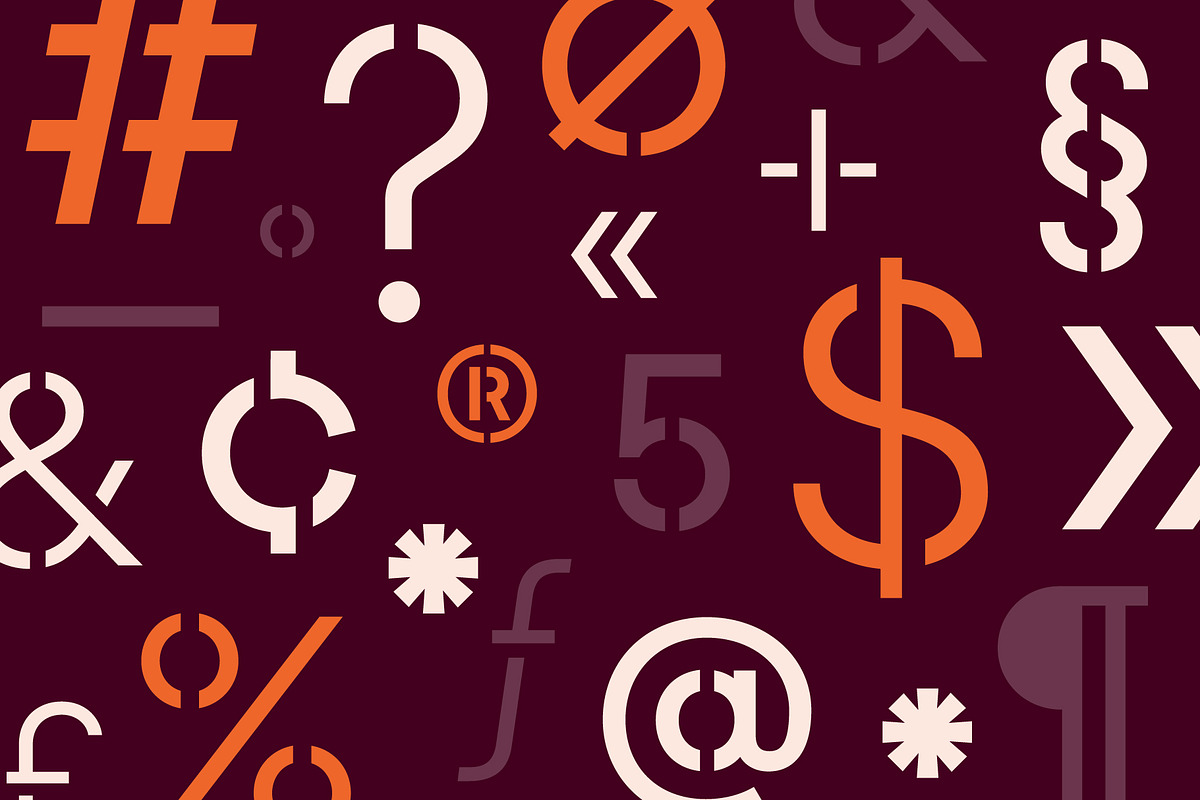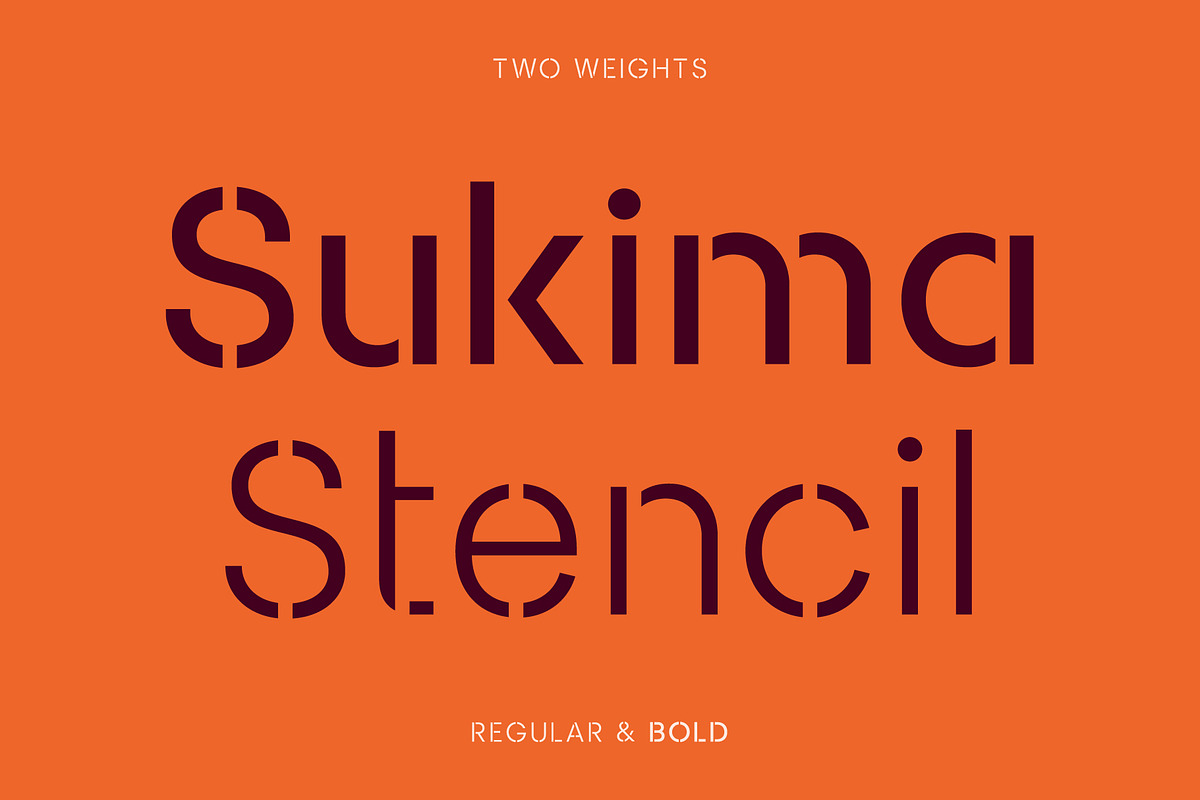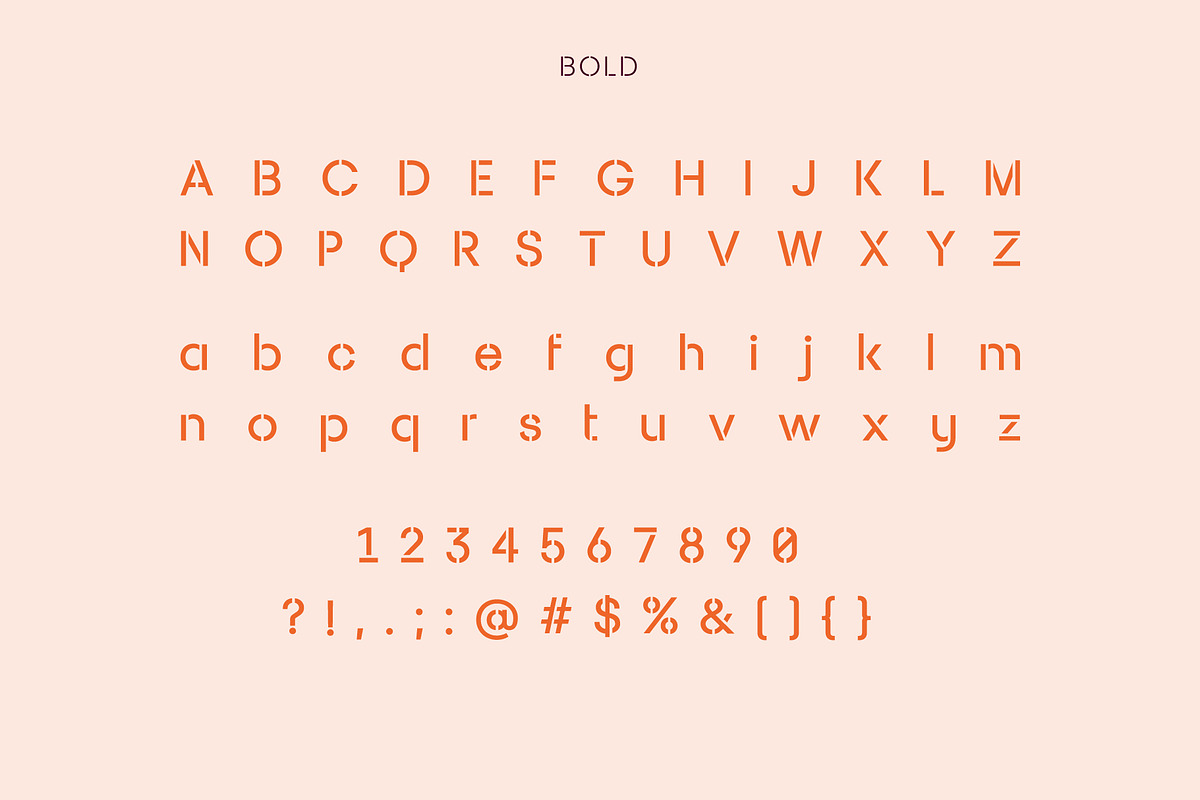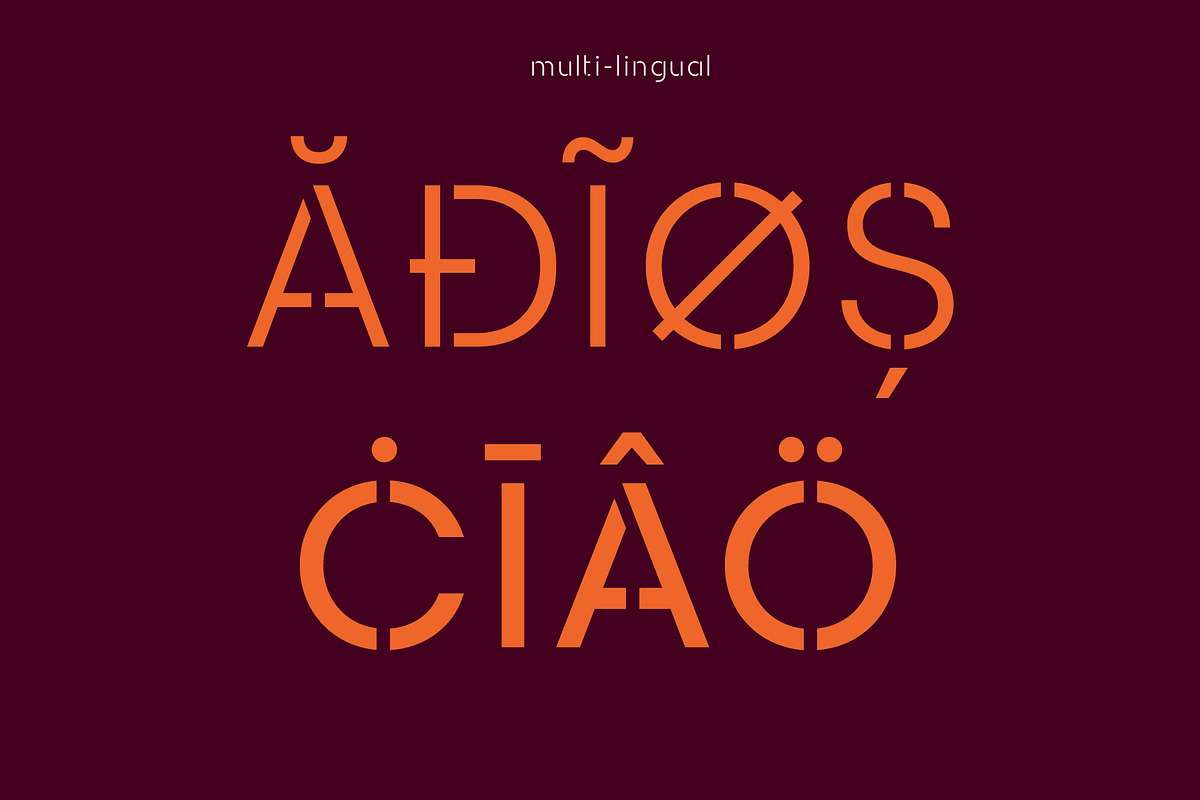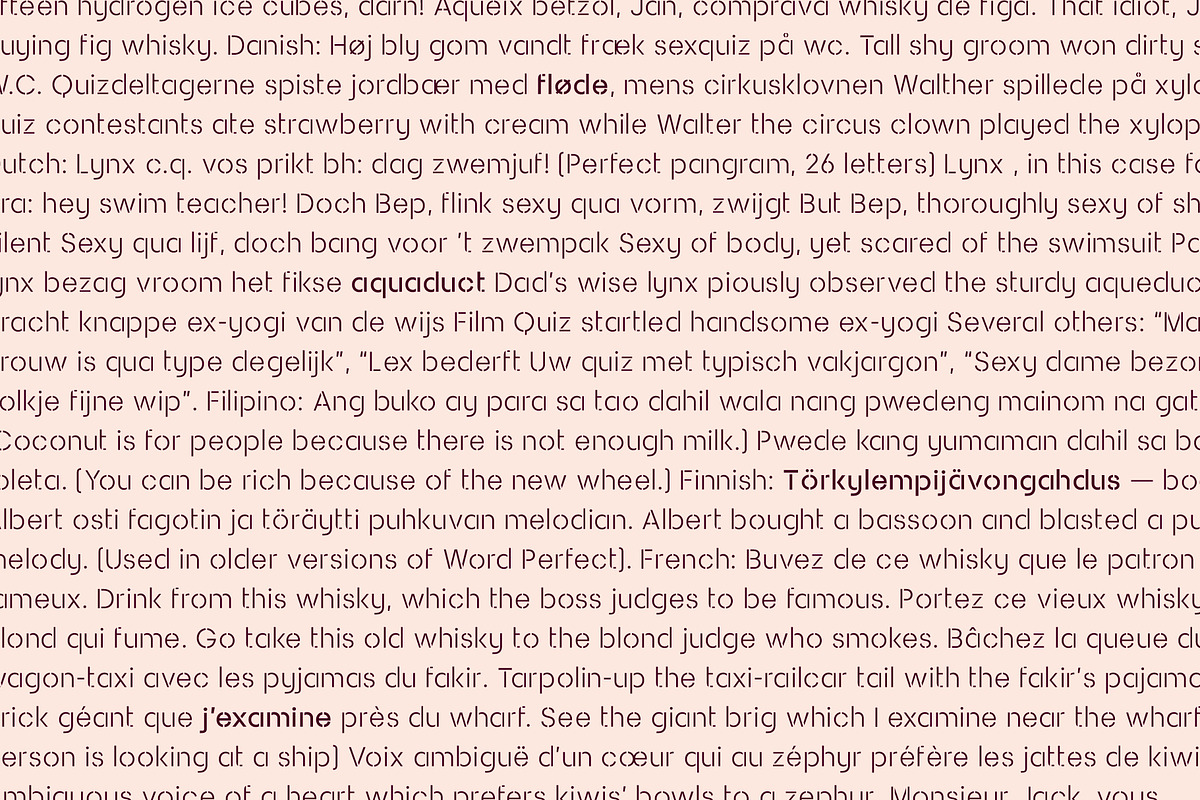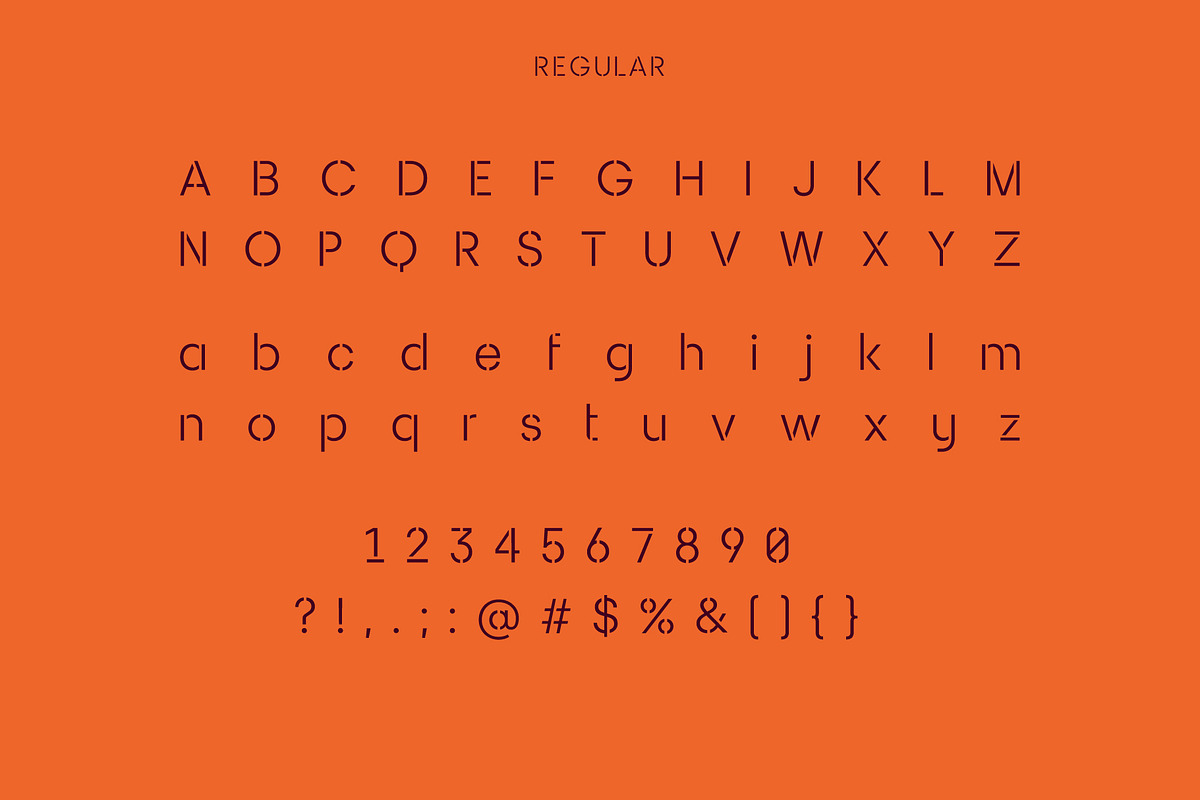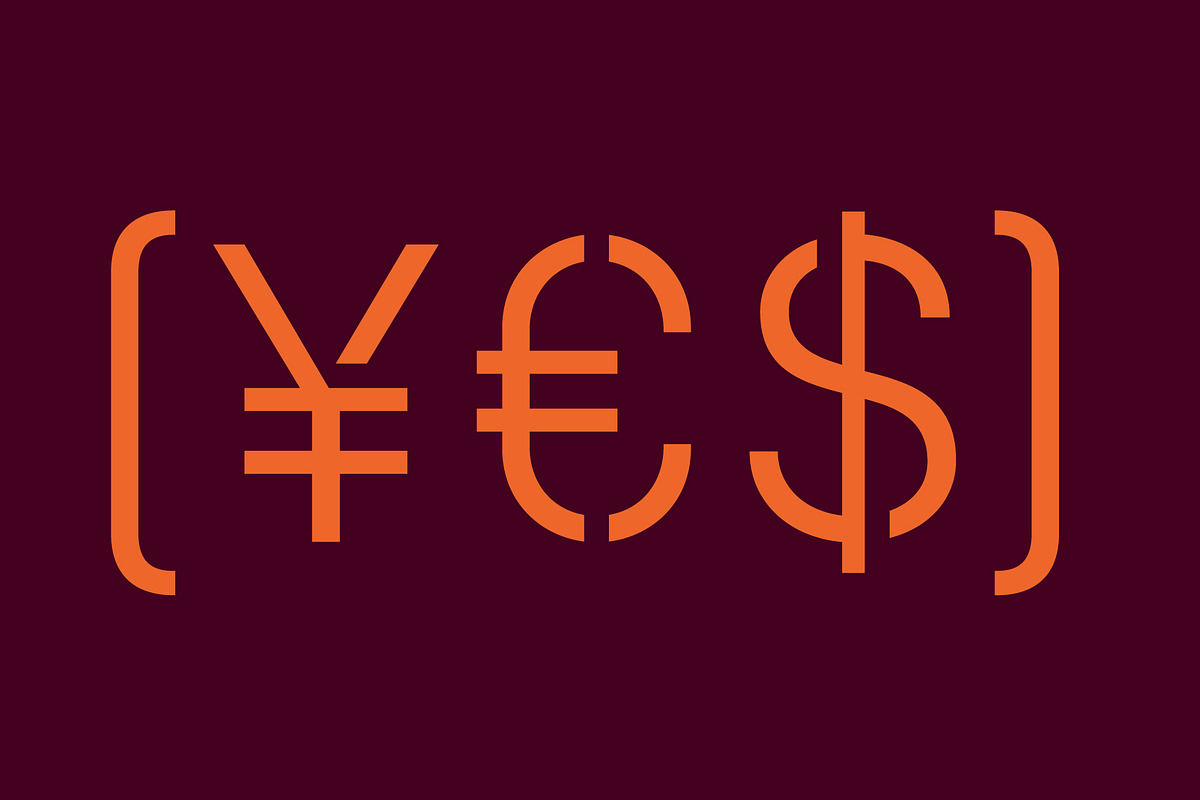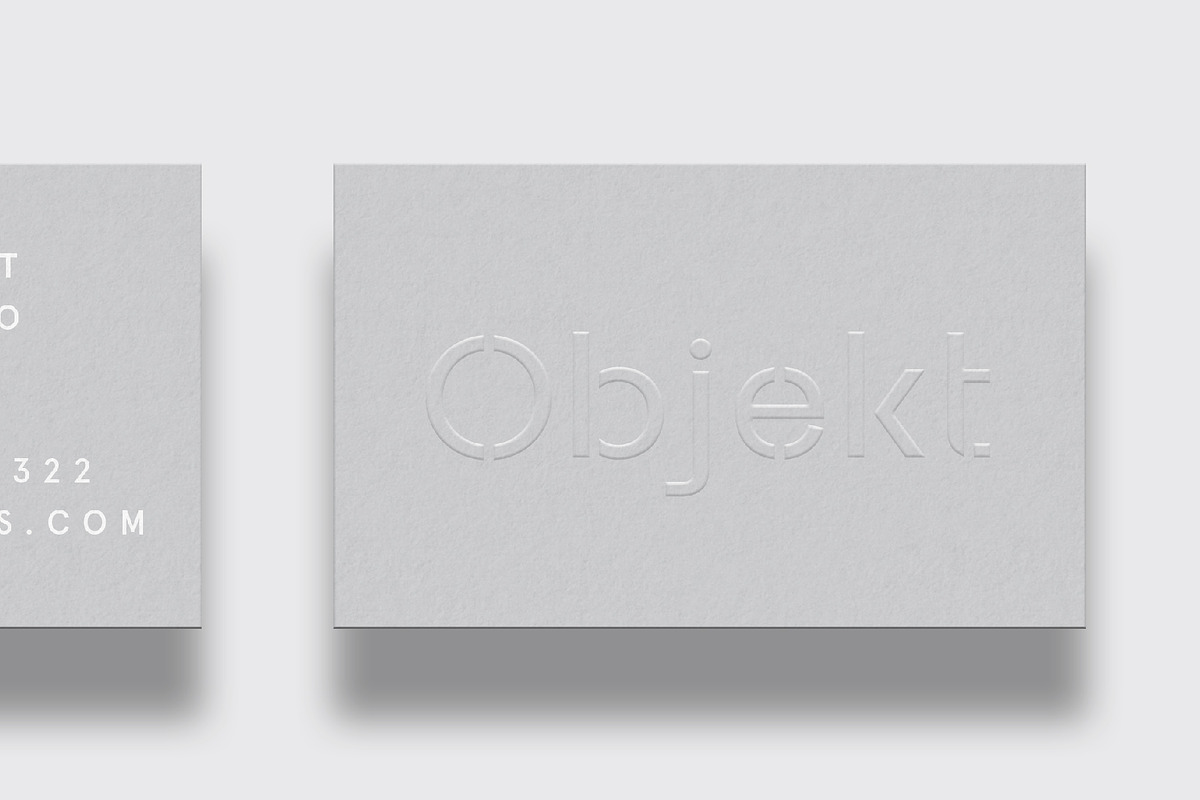
Sukima Stencil Display Font
Sukima Stencil – a contemporary sans-serif stencil font
Sukima Stencil is a new, contemporary sans-serif stencil display font that is equally at home in a bold industrial inspired design or a modern, minimal design.
Particularly impactful as titles and creating logos, Sukima Stencil is can also be used for body copy. Sukima Stencil comes in two weights, regular and bold, uppercase and lowercase, with a large number of glyphs and multi-lingual support.
Two weights; Regular and Bold
Multilingual support for various languages including: French, German, Spanish, Portuguese, Italian, Dutch, Finnish, Swedish, and more.
- Sukima Stencil comes in two weights, regular and bold, uppercase and lowercase, with a large number of glyphs and multi-lingual support.
- Two weights; Regular and Bold Uppercase Characters Lowercase Characters Multilingual support for various languages including: French, German